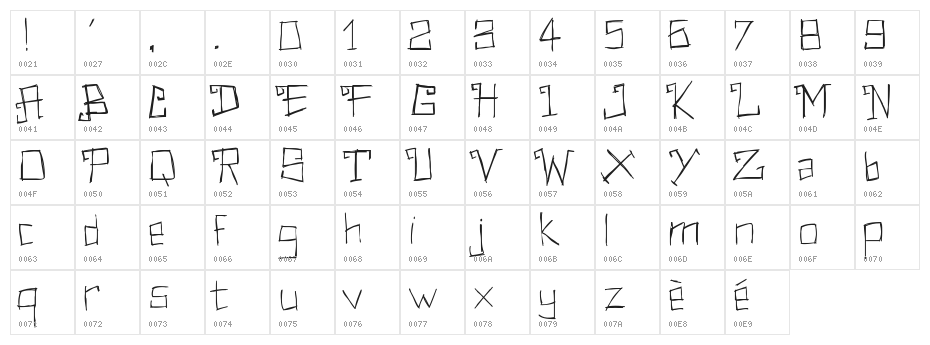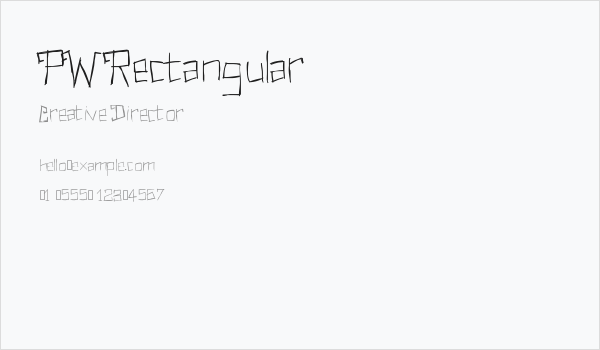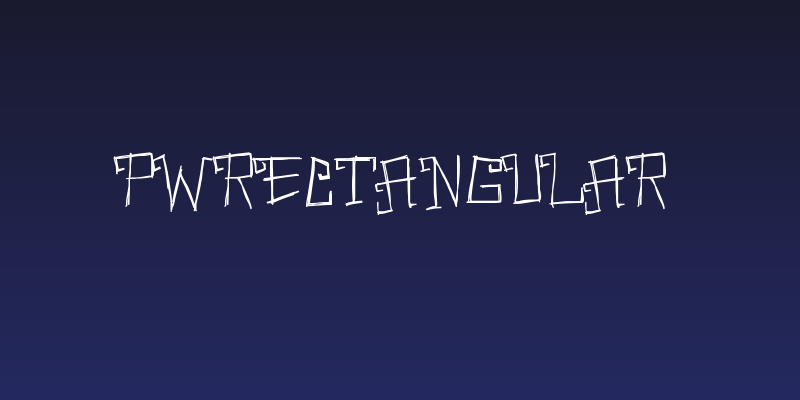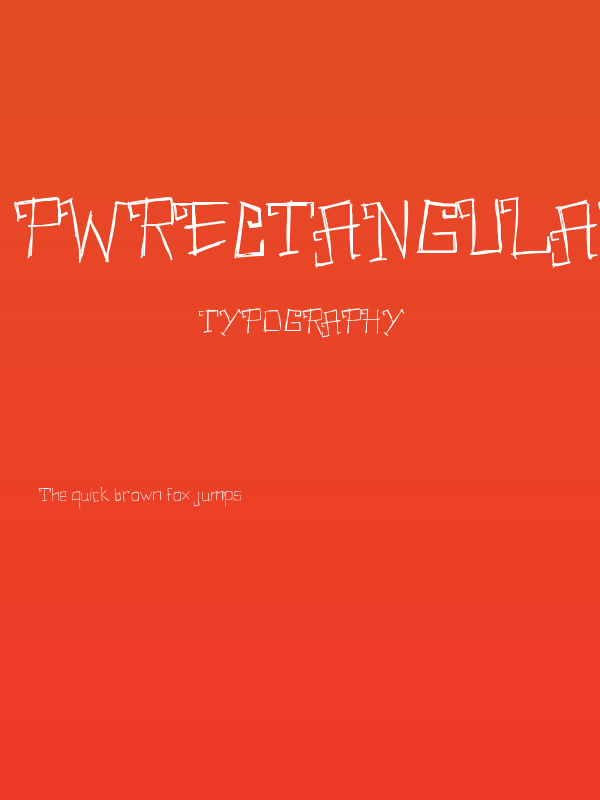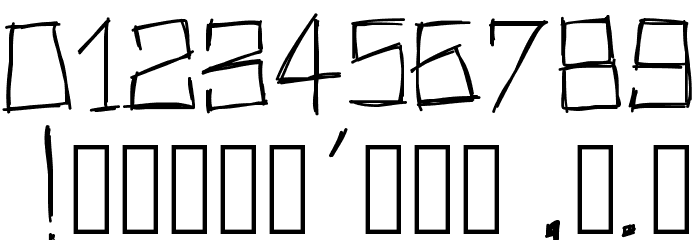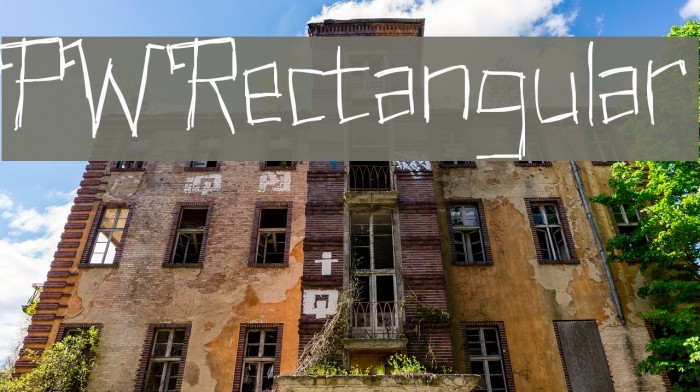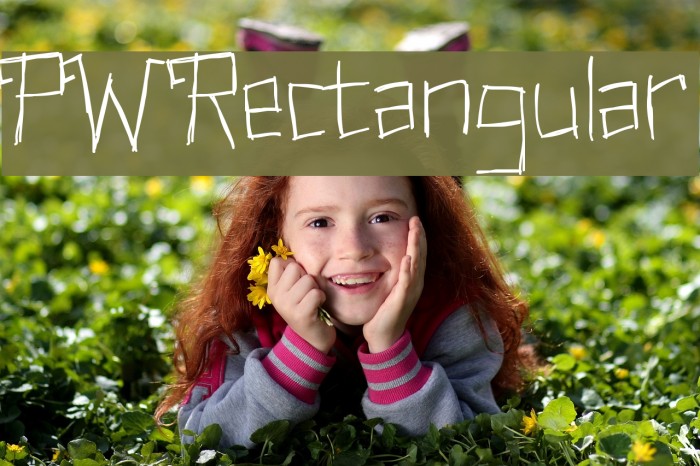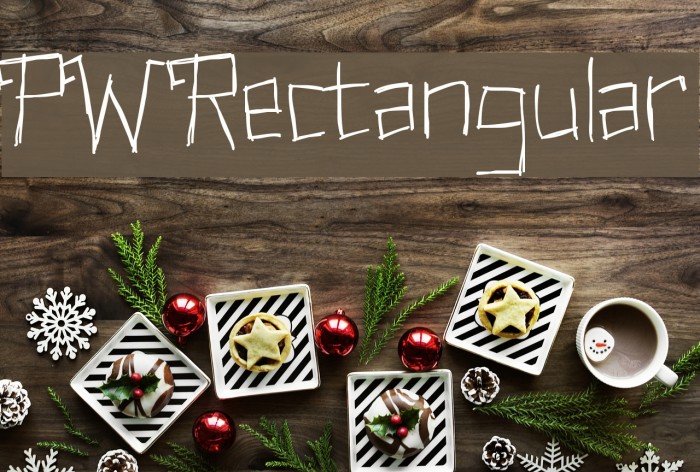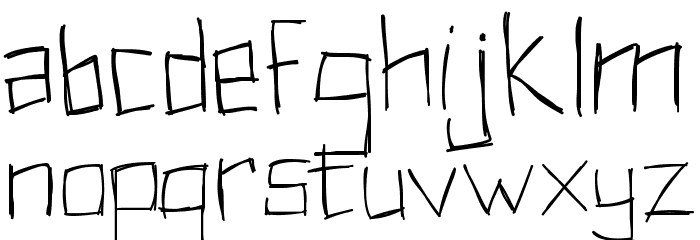
PWRectangular Font
PWRectangular Description
This font features a unique, hand-drawn style with a rectangular and angular appearance. Each character is crafted with a rough, sketch-like quality that gives it a distinct, artistic feel. The uppercase and lowercase letters maintain a consistent height, while the numbers and special characters follow the same design principles. The strokes are uneven, adding to the font's charm and making it ideal for creative projects. The overall look is both modern and playful, with a touch of whimsy that stands out in any design.
| Overall Style | Modern, Artistic |
| Use Case | Headlines, Creative projects, Posters |
| Proposed Projects | Ideal for artistic projects, creative branding, children's books, and unique poster designs. |